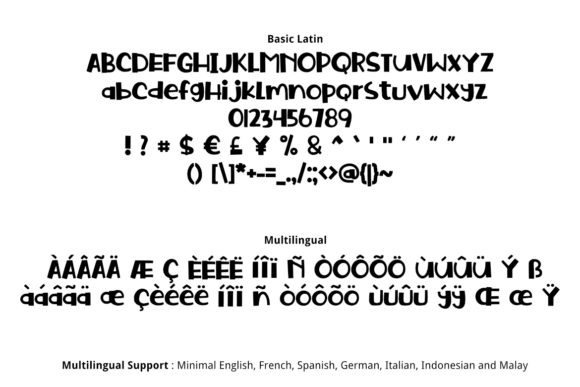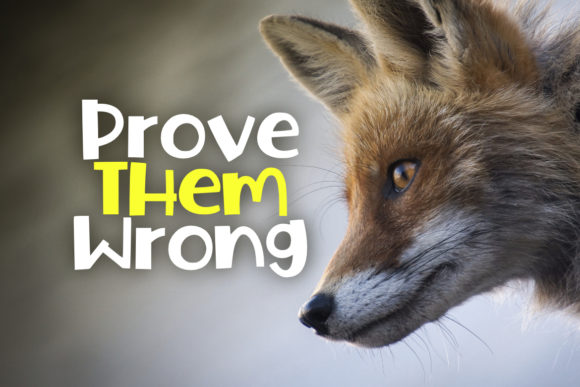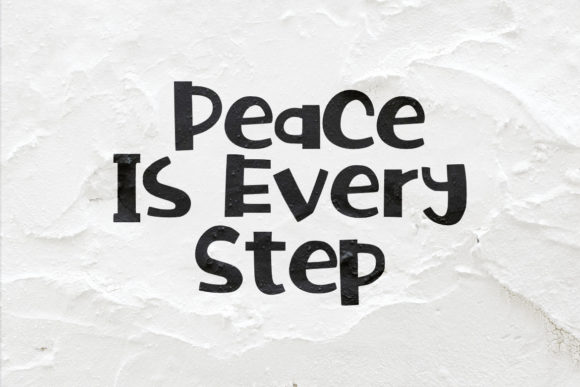
Introduction to Red Hat Font
Have you ever been working on a creative project, pouring your heart and soul into the perfect design, only to realize that the right font is missing? That’s exactly what happened to me when I stumbled upon the Red Hat Font. Its quirky, cartoon-like charm instantly captured my attention, and I knew I had to share it with fellow designers and crafty enthusiasts.
The Red Hat Font is more than just a fun display font – it’s a valuable design resource that can elevate any project to the next level. With its unique, hand-drawn style and transparent background, it’s perfect for creating eye-catching letterheads, titles, and stationery. Whether you’re a seasoned designer or a crafty hobbyist, the Red Hat Font is a high-quality addition to any design toolkit.
Key Features of Red Hat Font
- High-quality design resource with a unique, creative style suitable for various projects.
- Features a transparent background, making it ideal for designs requiring a subtle, non-intrusive font.
- Designed with high resolution (up to 300 DPI) for crisp, clear text display.
- Comes in a single weight, making it versatile for use in various creative projects.
- Supports a wide range of languages, including Latin, Cyrillic, and Greek alphabets.
Honest Review: Red Hat Font
I recently had the chance to work with the Red Hat Font in one of my creative projects, and I must say it was a pleasant experience. The font has a very distinctive, hand-drawn feel to it, which adds a unique touch to any design.
One of the things that works well with the Red Hat Font is its versatility. It’s perfect for titles and headings, and can also be used for body text in creative ways. The high quality of the font makes it easy to work with, even at smaller sizes.
Some of the key features that I liked about the Red Hat Font include:
- Its unique, hand-drawn style
- Its versatility in use cases
- Its high quality, making it suitable for a variety of design resources
However, I did encounter some limitations with the font. For example, it doesn’t have a transparent background, which can make it difficult to use in certain design scenarios.
Overall, I was impressed with the Red Hat Font and would recommend it to designers looking for a unique, high-quality font for their creative projects.
Red Hat Font
The Red Hat Font is a versatile and high-quality design resource ideal for various creative projects. It offers a transparent background, making it easy to incorporate into your design.
Tips for Getting the Most Out of Red Hat Font
Experiment with different font sizes, colors, and styles to achieve the desired effect.
Use the transparent background to create a seamless design.
The Red Hat Font is suitable for various design projects, including:
Banner designs
Logo designs
Infographic designs
Brochure designs